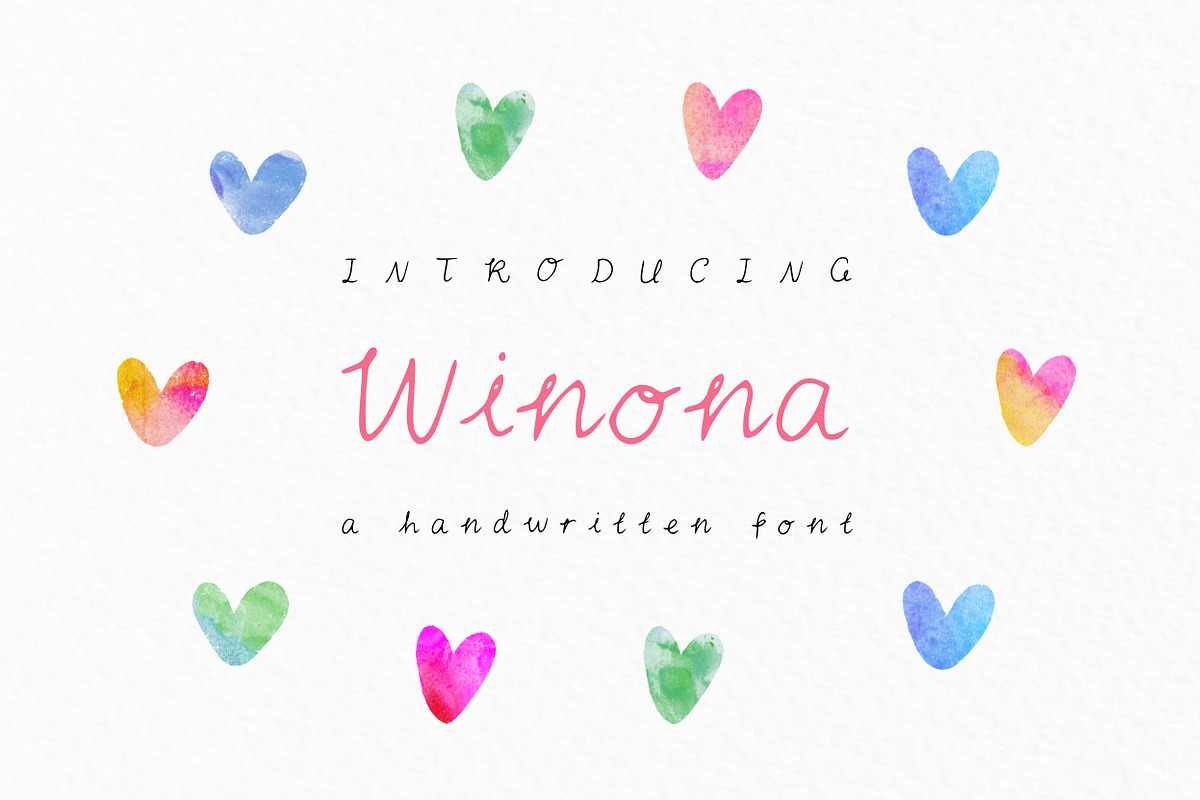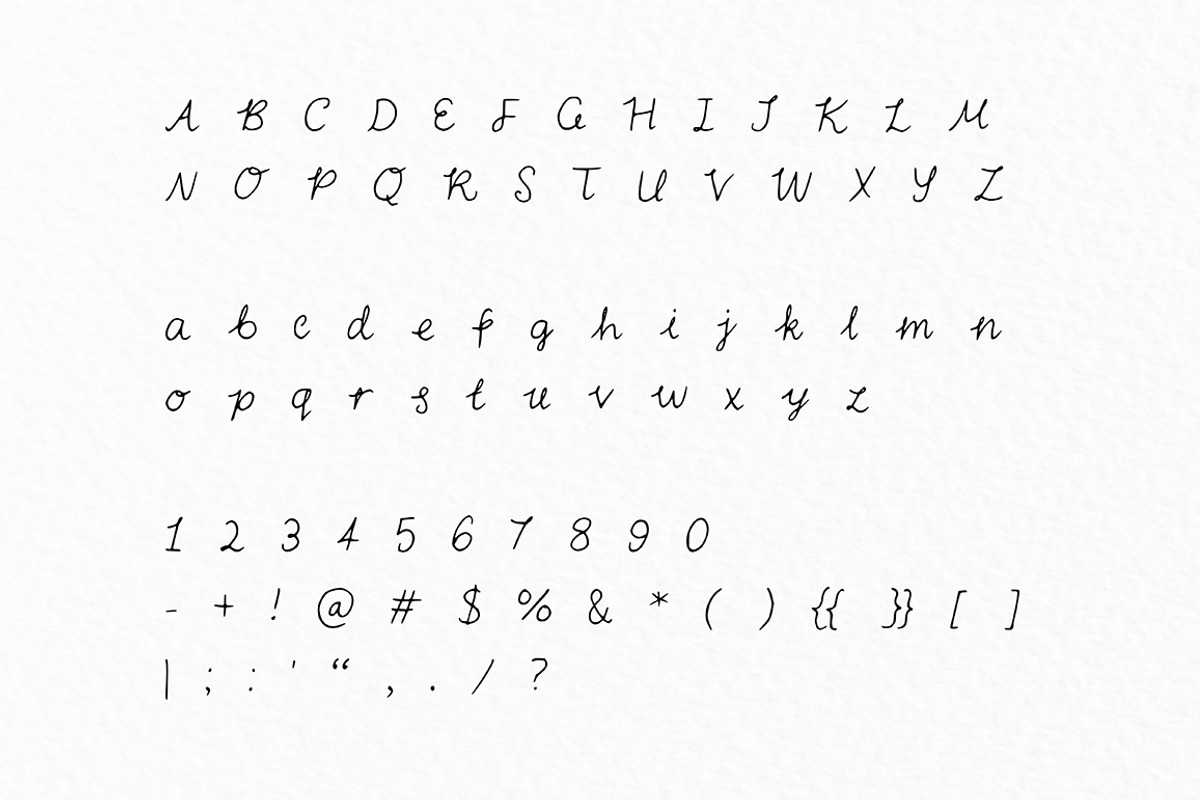
Winona Script Font
Winona Script Font by Hannah Lowe is a font selected for branding, posters, packaging, typography.
- It works with upper case and lowercase letters, as well as all number and special characters.
Why Winona Script Font is worth a look
Winona Script Font by Hannah Lowe fits naturally into Branding, posters, packaging, typography.